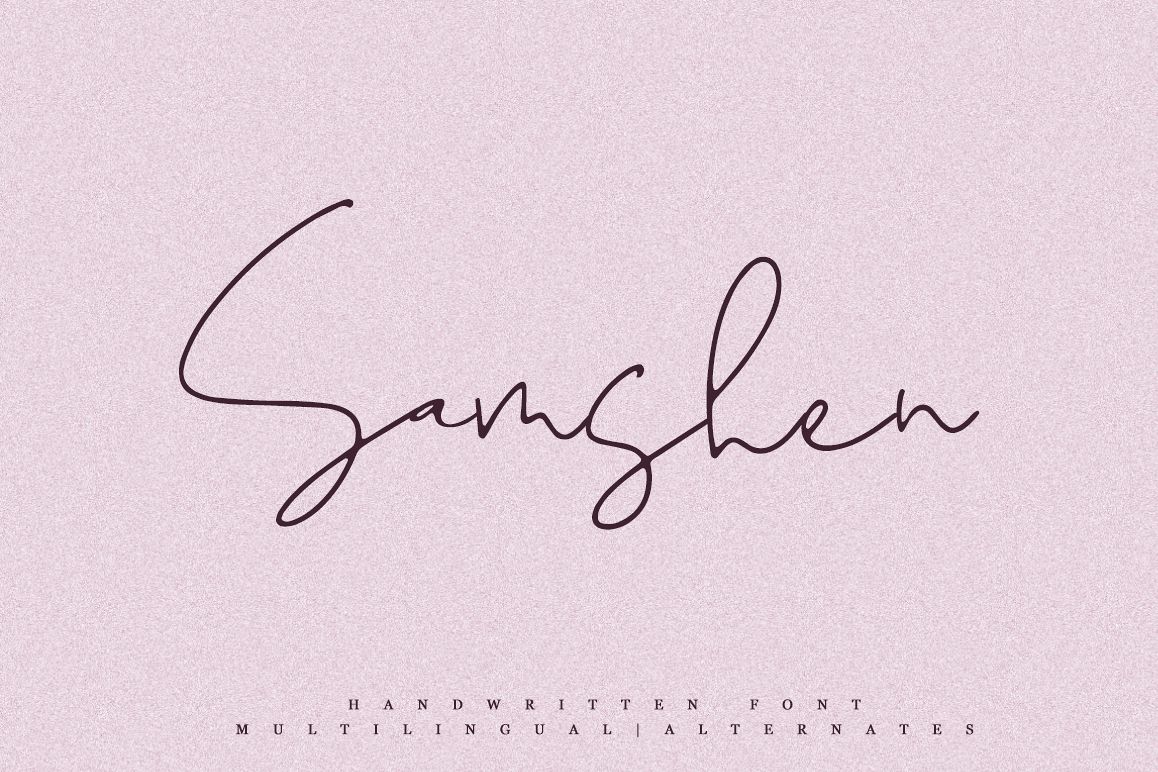
Samshen
Introducing Samshen
Handwritten font with multilingual support, standart and alternate uppercase, lowercase, numbers, punctuation.This font is ideal for branding and decorate your any project, are perfect for wedding invitation or your blog. Also with their help, you can create a logo or beautiful frame for your home. Or just use for your small business, book covers, stationery, marketing, magazines and more.Especially for you, I have prepared a lot of alternates that would be your project was more unique.
• UpperCase & Lowercase
• Numerals & Punctuations
• Multilingual characters (AÀÁÂÃÄÅCÇDÐEÈÉÊËIÌÍÎÏNÑOØÒÓÔÕÖUÙÜÚÛWYÝŸ?ŸÆŒßÞàáâãäåæçèéêëìíîïðñòóôõöøùúûüýÿ)